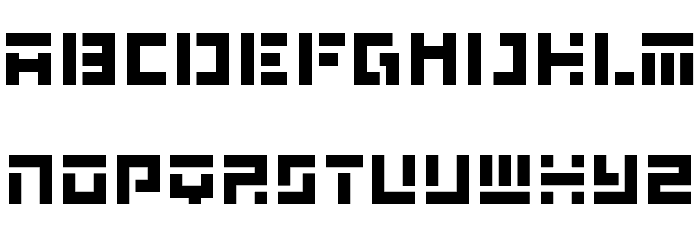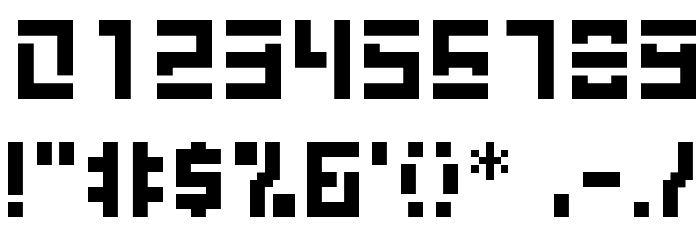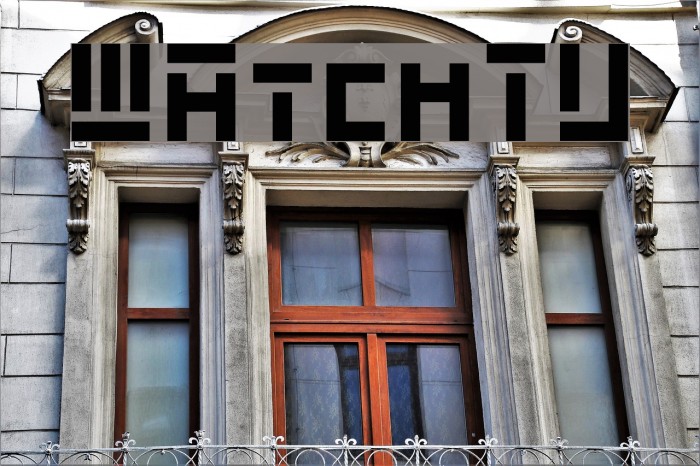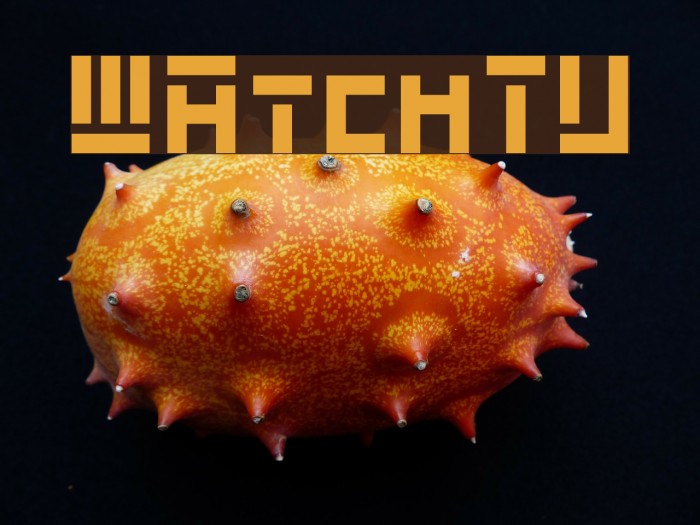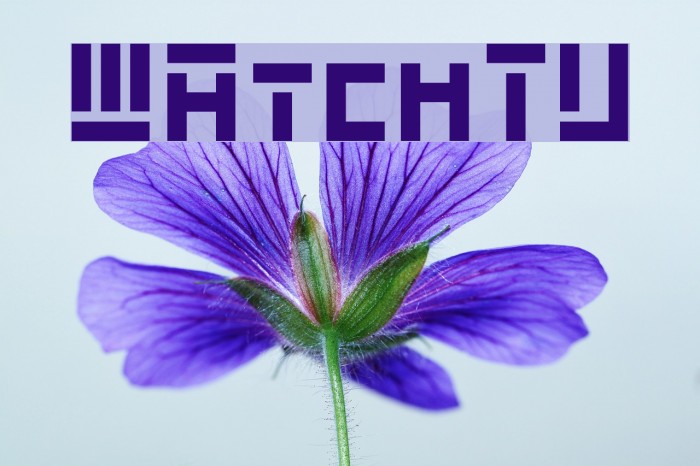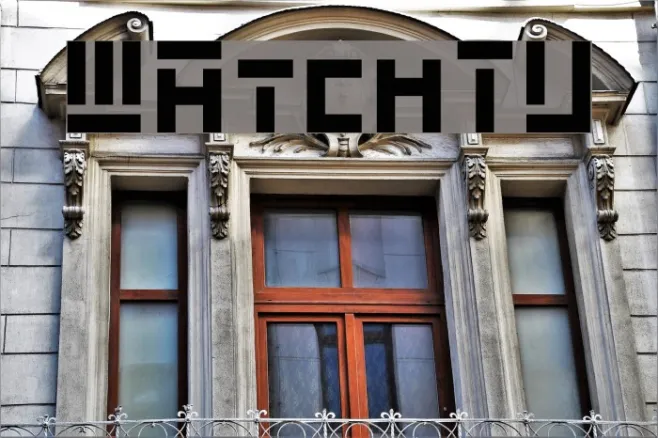
WAtchTV Font
This font features a bold, geometric design with a distinctly digital aesthetic. The characters are constructed with sharp, angular lines and uniform stroke widths, creating a blocky and futuristic appearance. Each letter and number is crafted with precision, maintaining a consistent height and width that enhances readability while conveying a sense of modernity. The font's style is reminiscent of early digital displays, making it ideal for projects that require a tech-inspired or retro-futuristic look. The special characters are designed to match the overall theme, ensuring a cohesive visual experience.
A bold, geometric font with a digital, futuristic style.
- Proposed Projects: Ideal for tech-related branding, digital interfaces, video game design, and retro-futuristic themed projects.